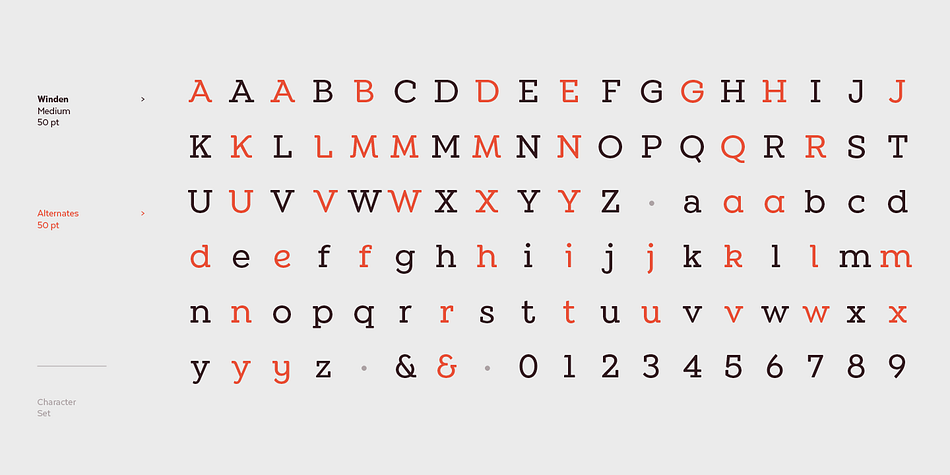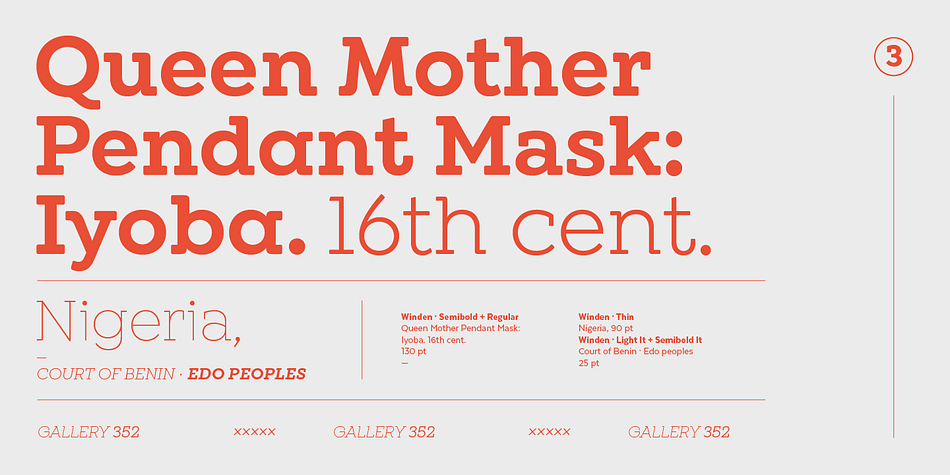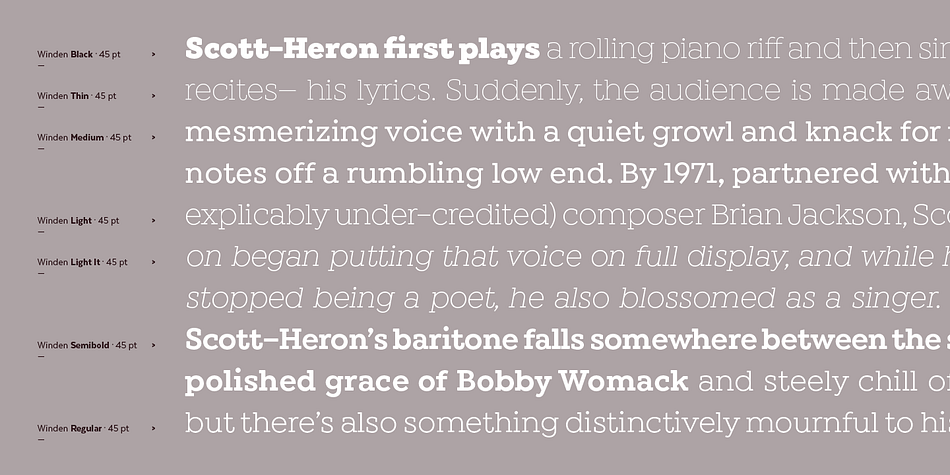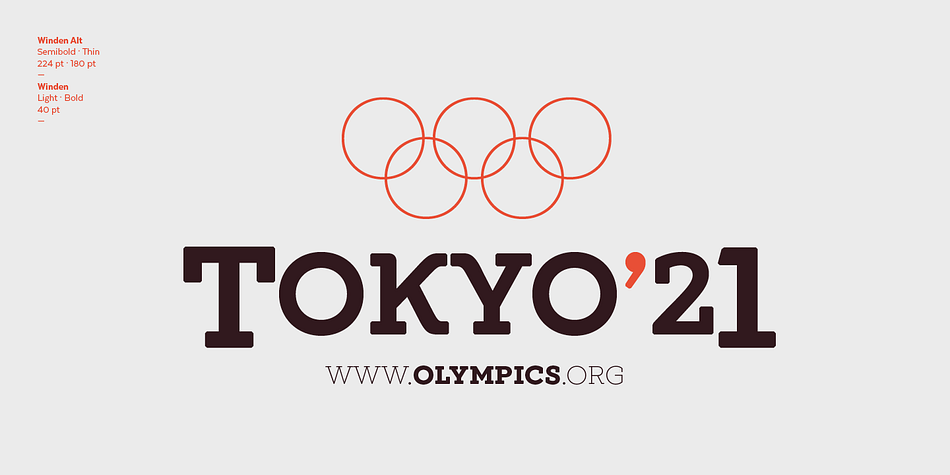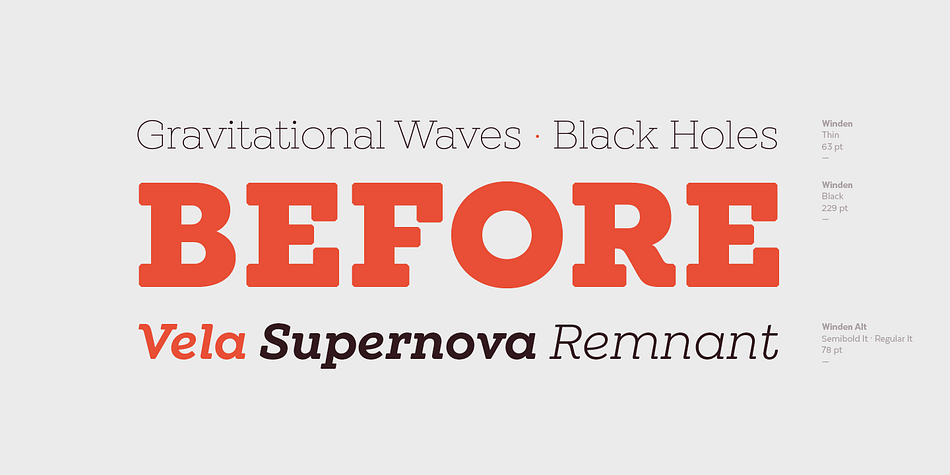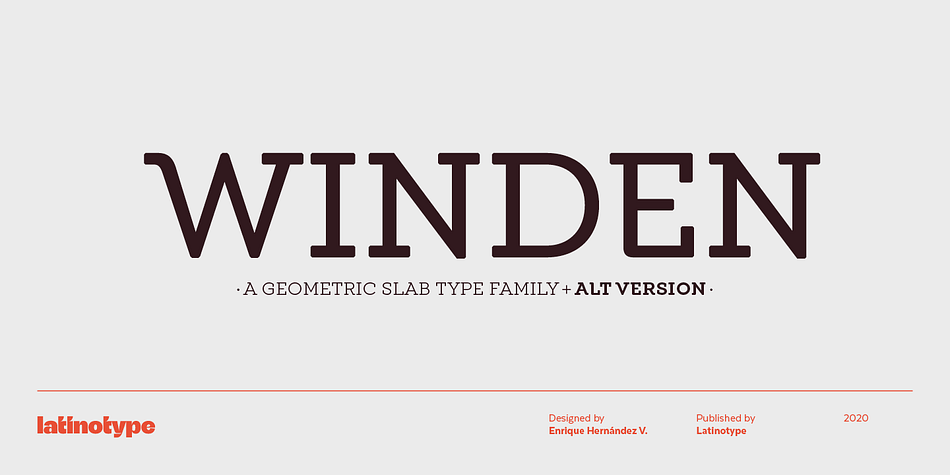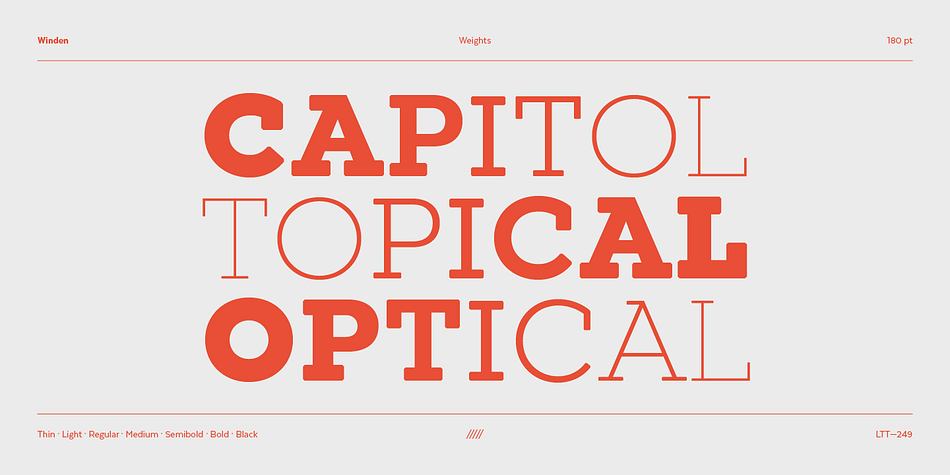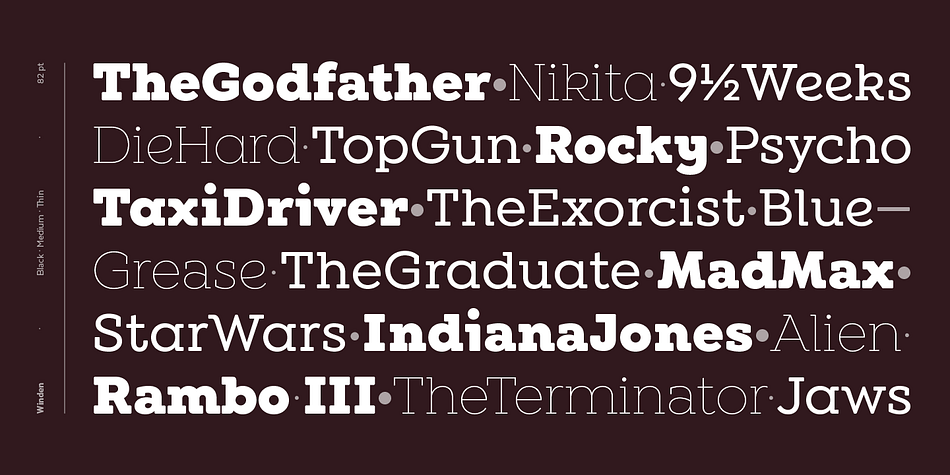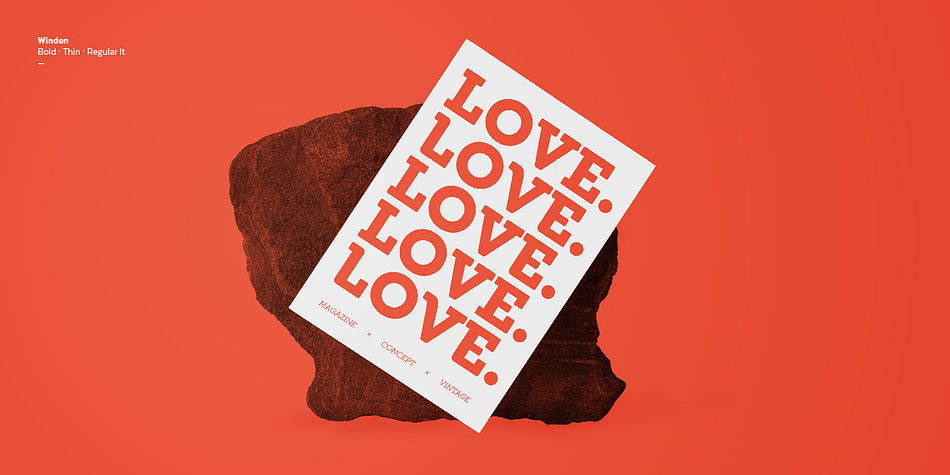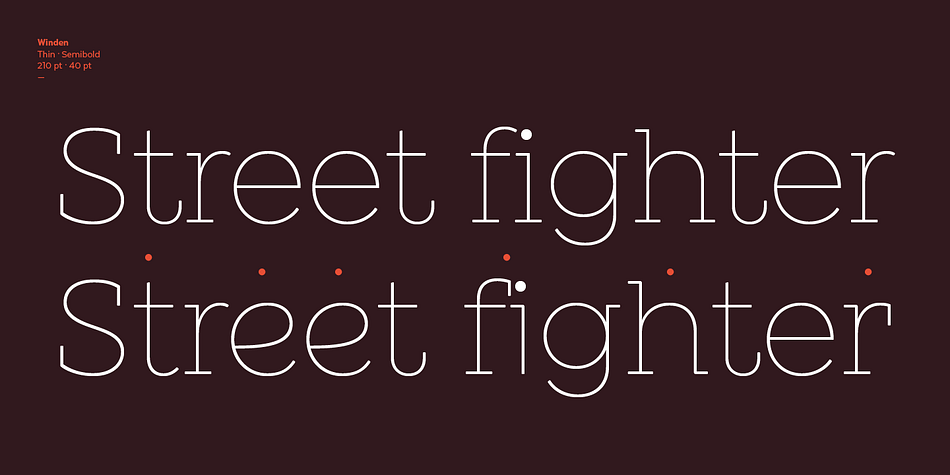
Designed by Enrique Hernandez, Winden is a slab serif font family. This typeface has twenty-eight styles and was published by Latinotype.
Winden is a geometric slab serif typeface based on the bestselling font Isidora and inspired by early 20th century famous classic slab-serif typefaces. Characteristic features such as trapezoid shape serifs give Winden a modern, contemporary touch and the rounded edges of the Alt version make it look unique and special.
This font consists of two subfamilies: Winden —classic, simple and functional— and Winden Alt (playful and contemporary), ideal for display use. Each version comes in 7 weights, ranging from Thin to Black, and includes matching italics— 28 fonts in all.
Winden is the perfect choice for headlines, logos, branding, packaging, publications and websites. The full set contains 615 characters that support over 200 Latin-based languages.